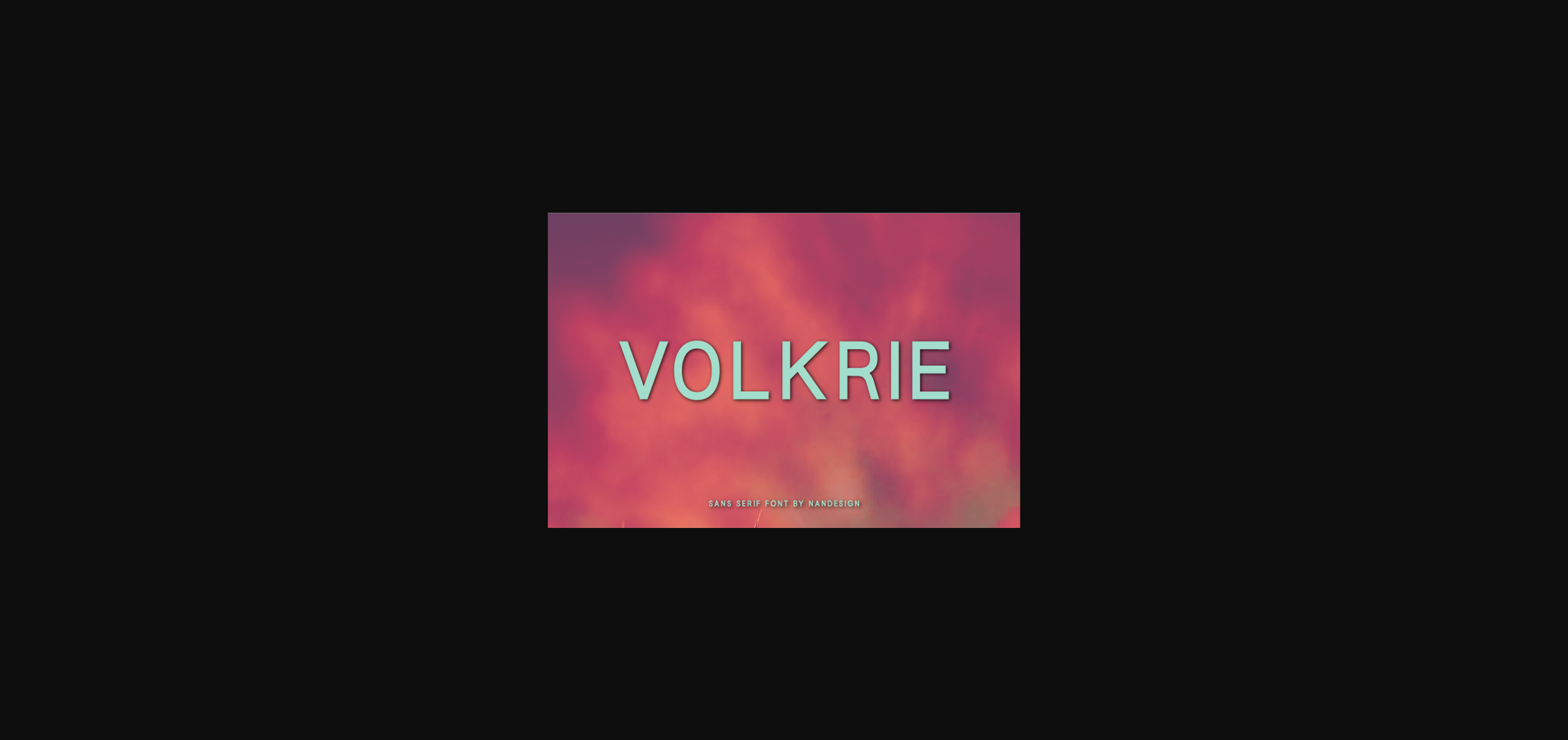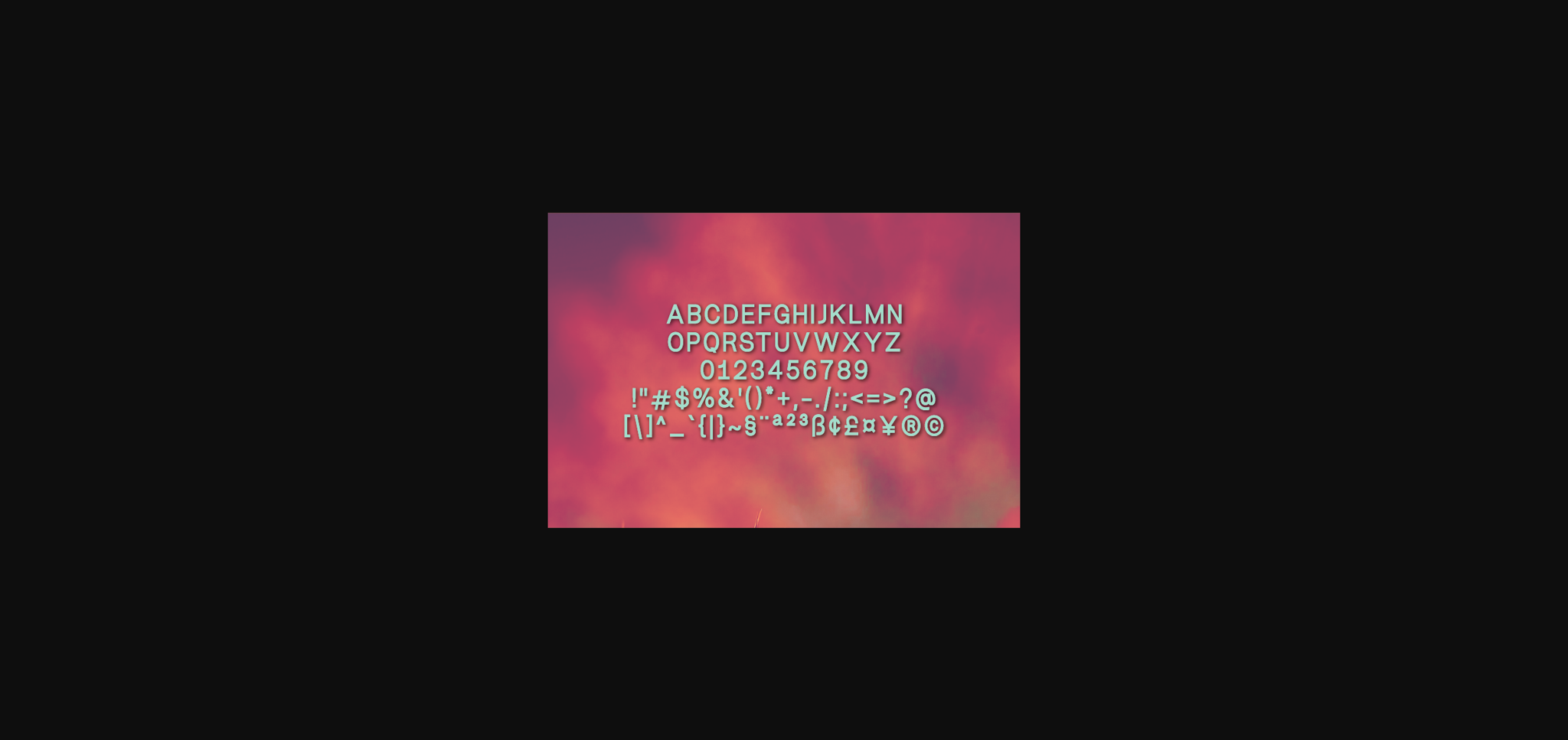
About Volkrie Font
Volkrie is an adaptable sans serif font, designed to complement every project you’re currently working on. It has a clean, thin and smooth vibe and it will be a hit for any design that you want to add it to.